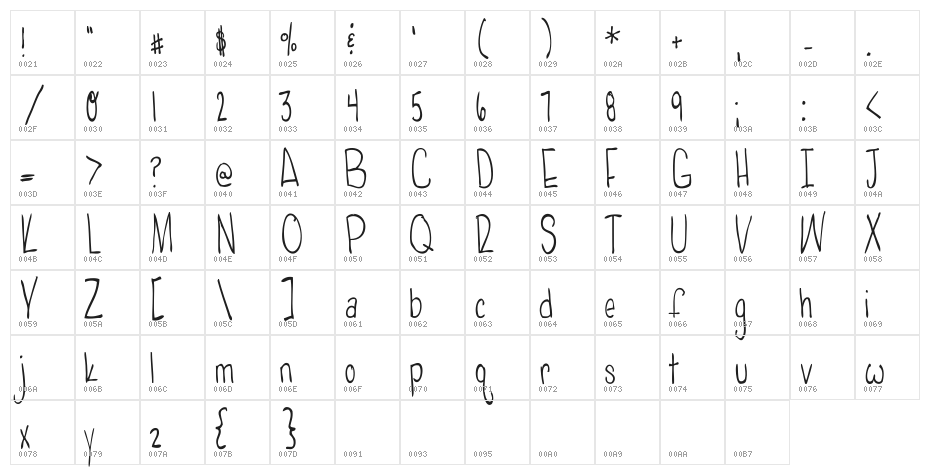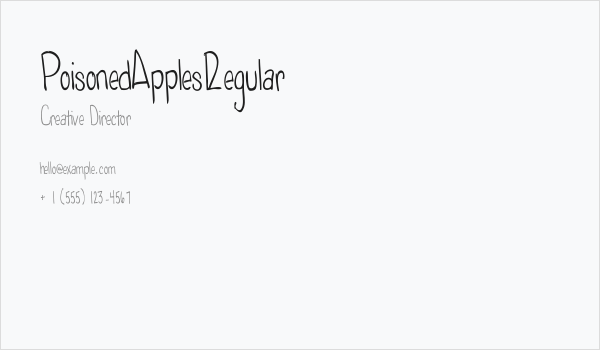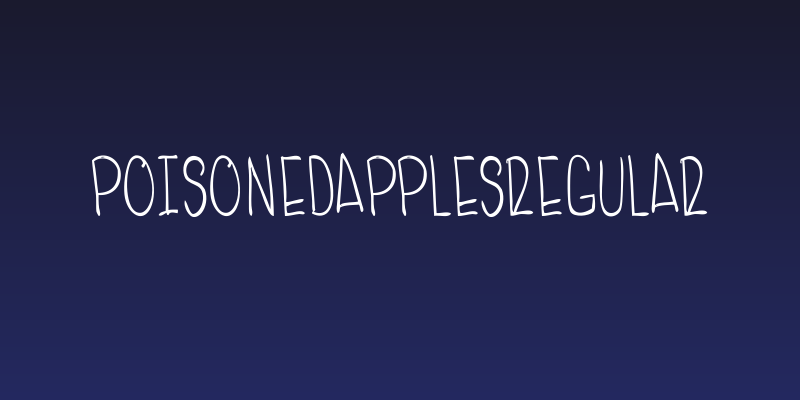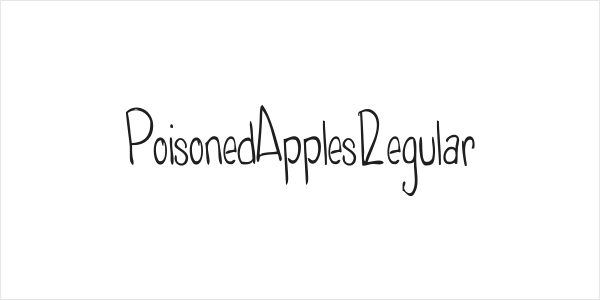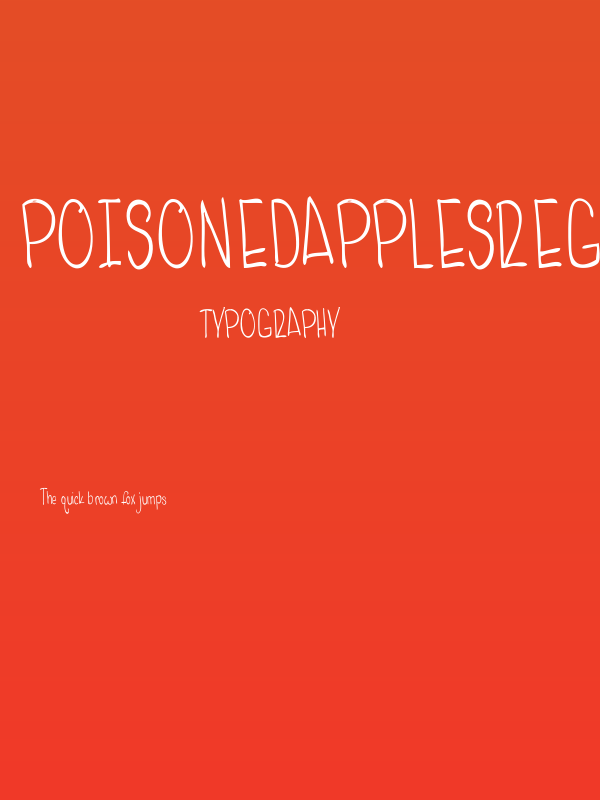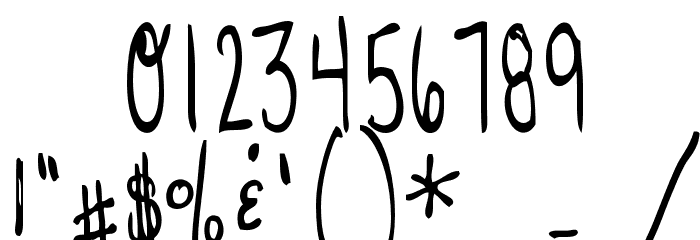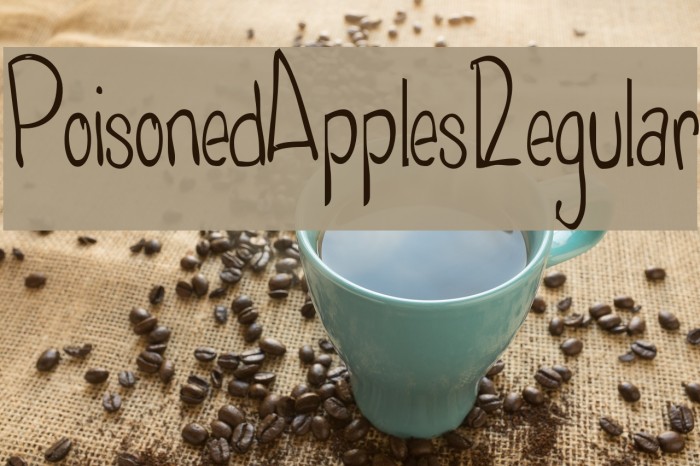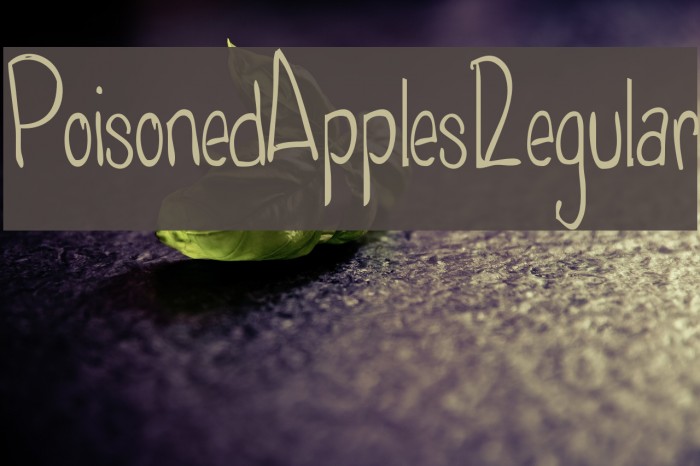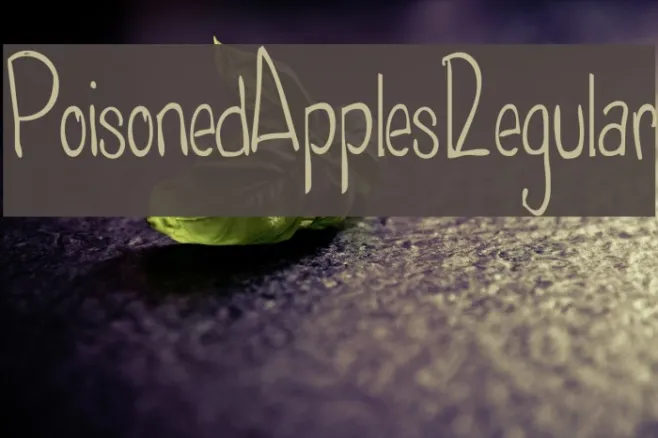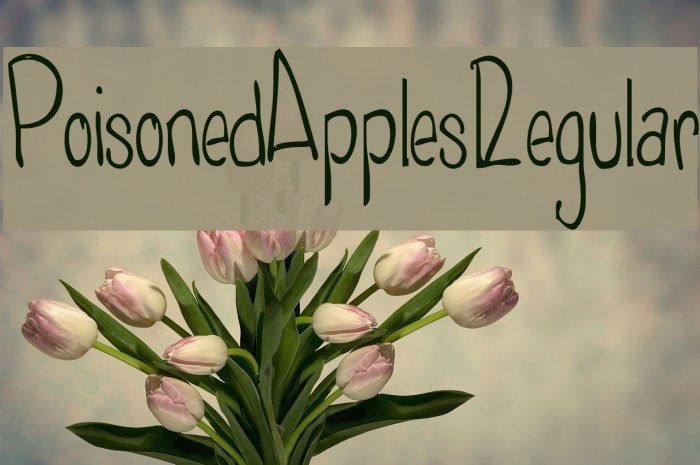
PoisonedApplesRegular Font
PoisonedApplesRegular Description
This font features a whimsical and playful design, characterized by its irregular, hand-drawn appearance. The letters have a slightly uneven baseline, giving it a casual and informal feel. The strokes are thin and vary slightly in thickness, adding to the organic and spontaneous look. The uppercase letters are tall and narrow, while the lowercase letters maintain a consistent style with a slightly more rounded form. Numbers and special characters follow the same playful aesthetic, making this font suitable for creative and artistic projects.
| Proposed Projects | Ideal for children's books, greeting cards, playful branding, and creative posters. |